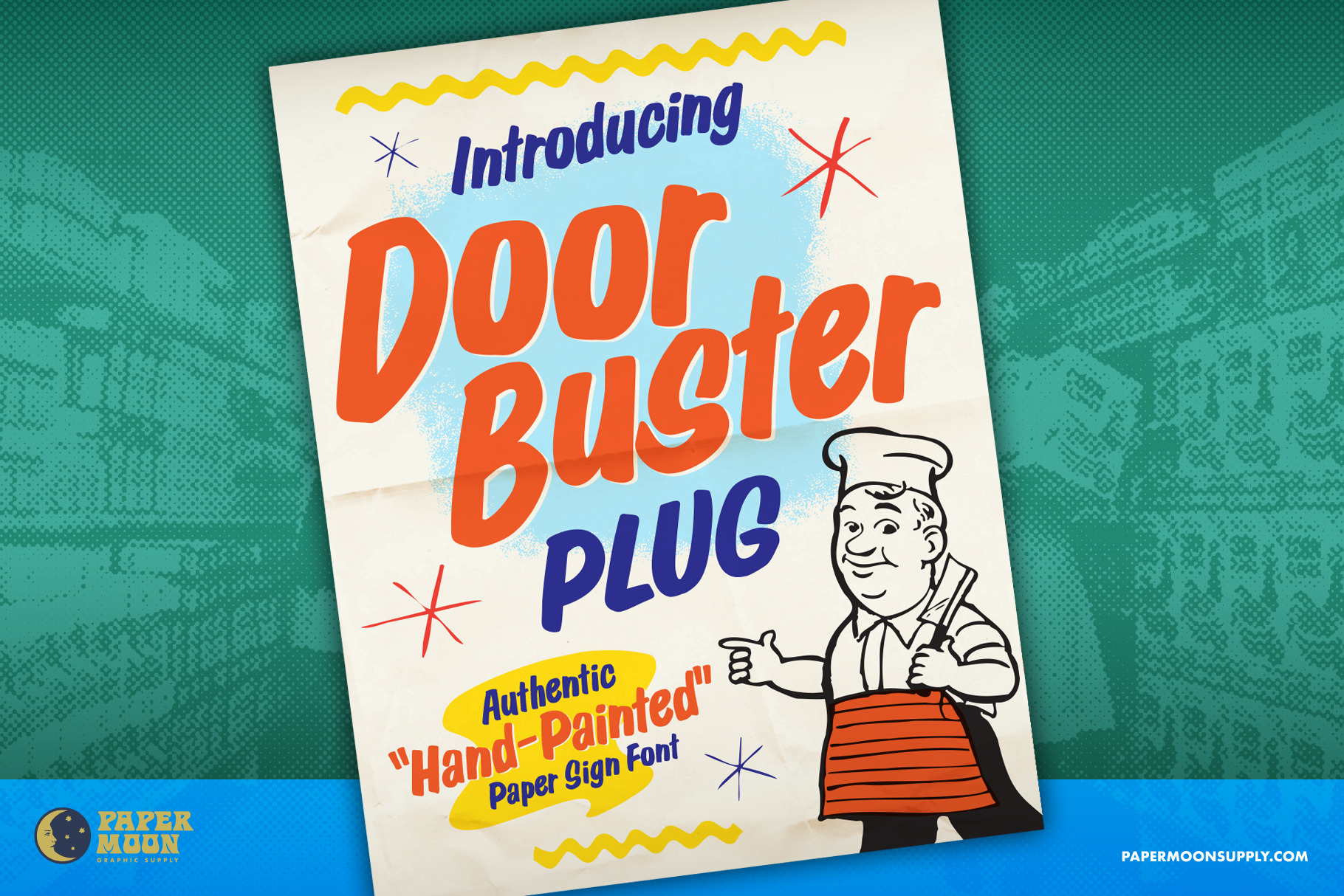
Doorbuster Plug Sign Painter Font
A new font inspired by vintage hand-painted paper signs.
The Doorbuster collection is based on retro hand-painted paper signs primarily seen in grocery stores from the 1920s through the 1970s. We meticulously hand-drew each font, modeling the spacing and uneven baseline found in vintage sign painting. The purposely organic ascenders and descenders, along with a huge set of ligatures/contextual alternates to avoid the same letters repeating when paired, give it a real hand-lettered look.
Doorbuster Plug is perfect for both vintage-inspired and contemporary marketing, branding, and packaging designs. It's a classic workhorse font from the 1950s thru 1970s. Check out a few of the samples included in the thumbnails to see what can be done with it.
- Hand-drawn with over 350 characters
- Includes alphanumerics and ligatures
- Created by Scott Banks of Persuasion Bureau
Doorbuster Plug was designed by award-winning illustrator and designer Scott Banks. Scott created this font because he could never find a retro script that had . Now you can get this typeface for your personal arsenal.